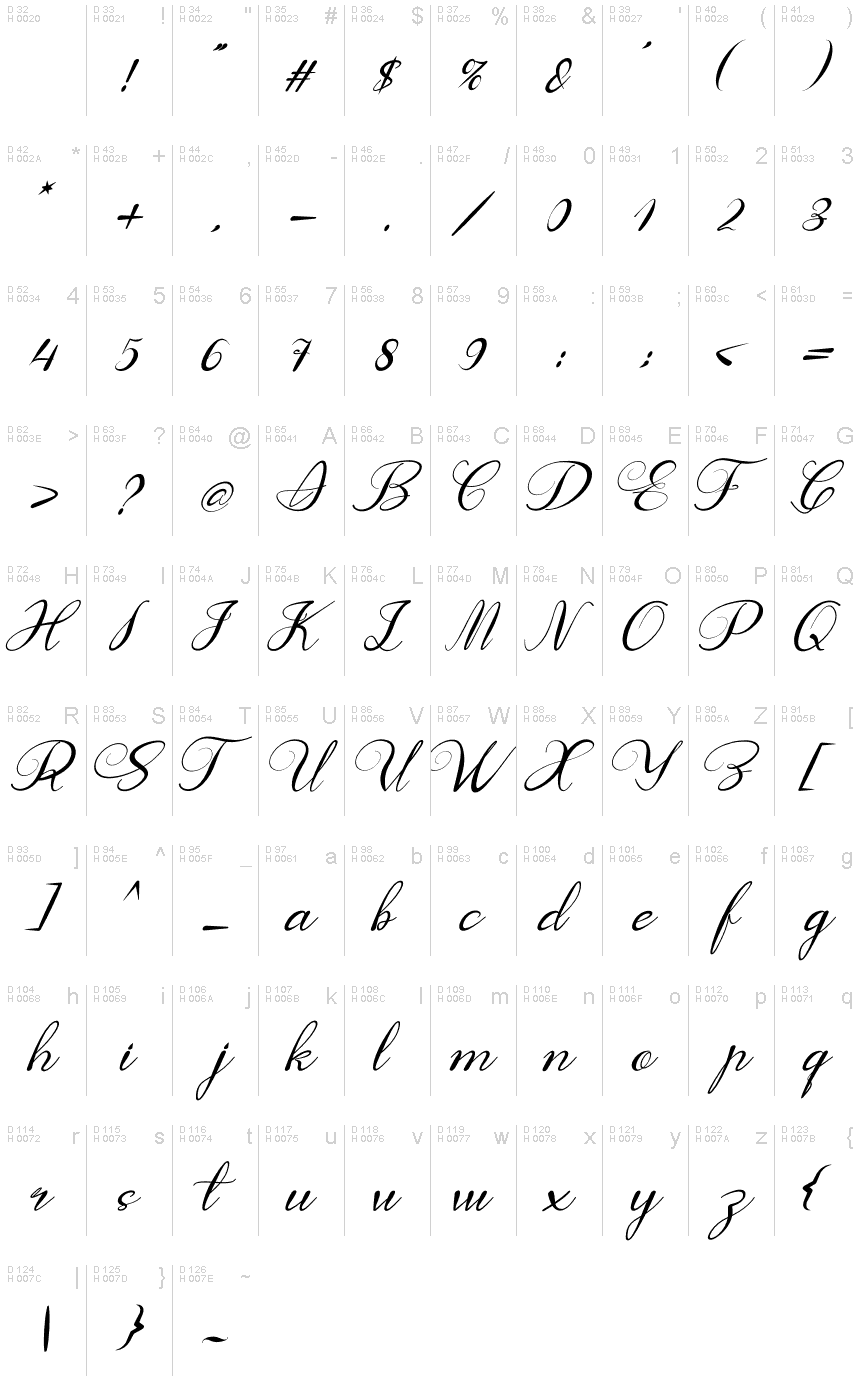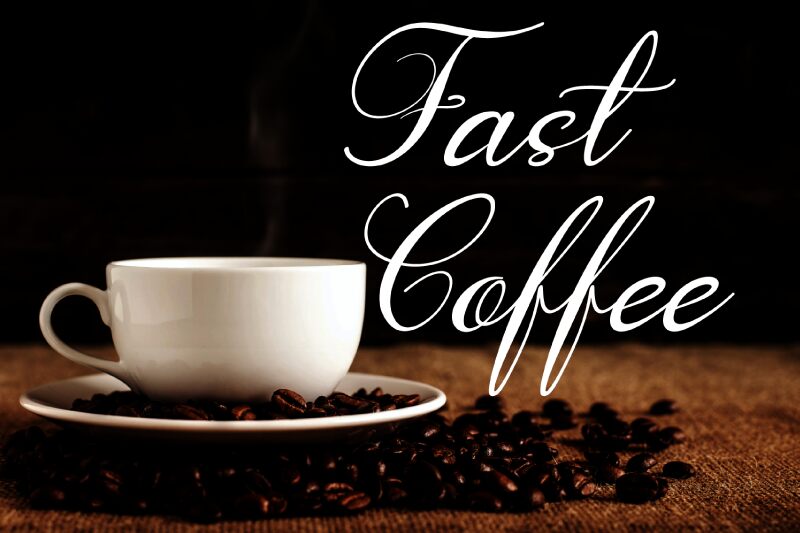
Fast Coffee Italic
Fast Coffee Italic is a stunning calligraphy font designed by Design Vector10. Its semi-light weight makes it perfect for a wide range of projects, from elegant wedding invitations to sleek branding designs. The graceful curves and flowing strokes of this font are sure to add a touch of sophistication and class to any project. Whether you're designing a logo for a high-end coffee shop or creating beautiful typography for an art print, Fast Coffee Italic is the perfect choice. With its unique style and versatile nature, this font is sure to make your designs stand out from the crowd.